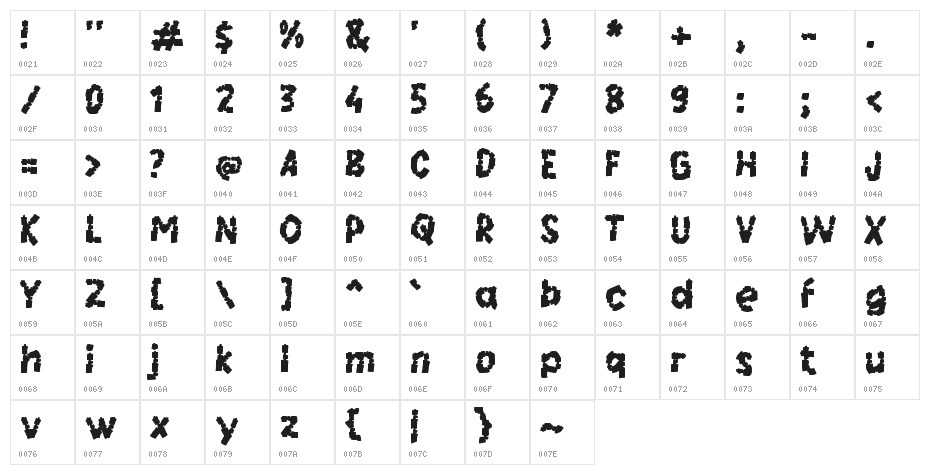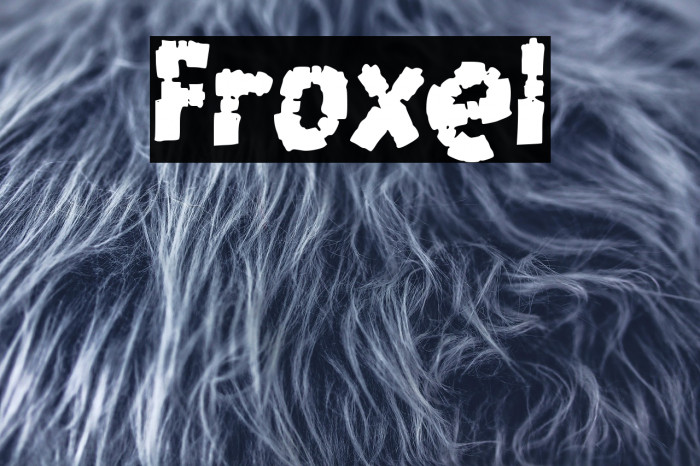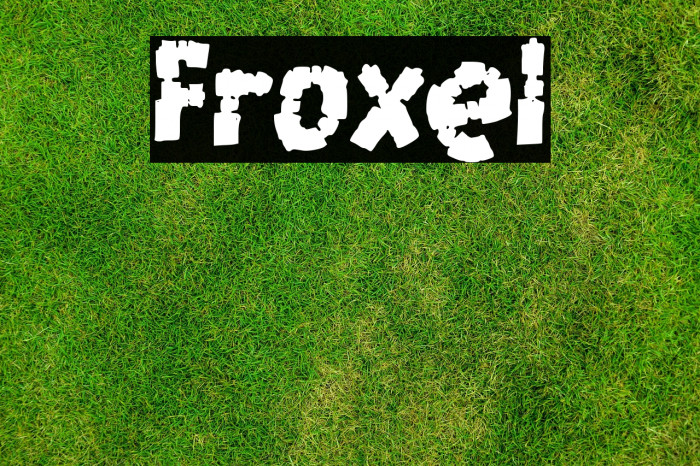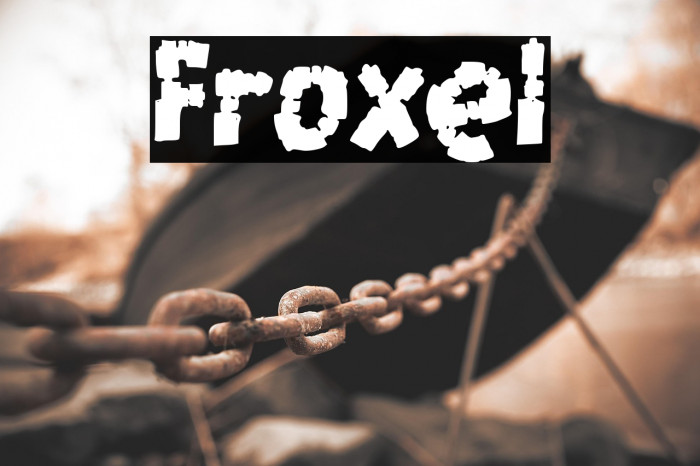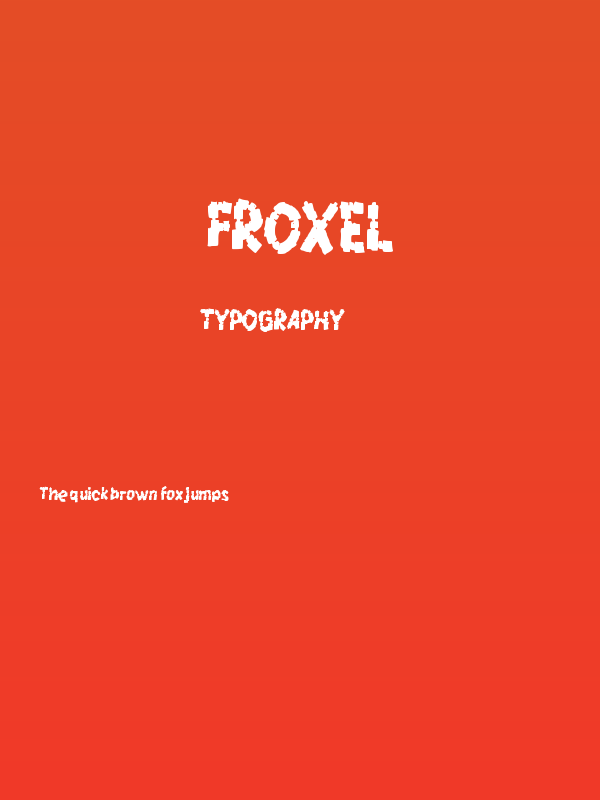
Froxel Font
This font features a bold and playful design with a pixelated, blocky appearance. The characters are constructed with irregular edges, giving them a unique, digital aesthetic. The uppercase and lowercase letters maintain a consistent style, with the uppercase being slightly larger and more pronounced. Numbers and special characters follow the same design principles, ensuring uniformity across the font. The overall look is reminiscent of retro video game graphics, making it ideal for projects that require a fun and nostalgic touch.
| Overall Style | Retro, Playful |
| Proposed Projects | Ideal for video game graphics, retro-themed posters, children's books, and playful branding. |